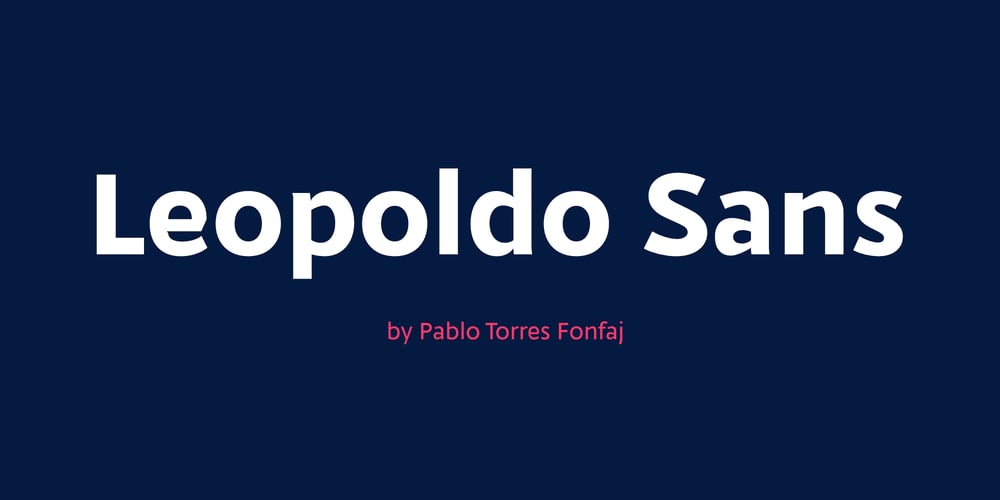
Leopoldo Sans
Leopoldo Sans font
Leopoldo Sans Font Family was designed by Pablo Torres and published by Tiposureño. Leopoldo Sans contains 3 styles and family package options. Leopoldo Sans is a modern sans serif typeface. He has a small family and its members are: light, regular and bold. Each weight includes small caps, ligatures, and tabular numbers. It could work perfectly in your design, web, editorial and corporate works.